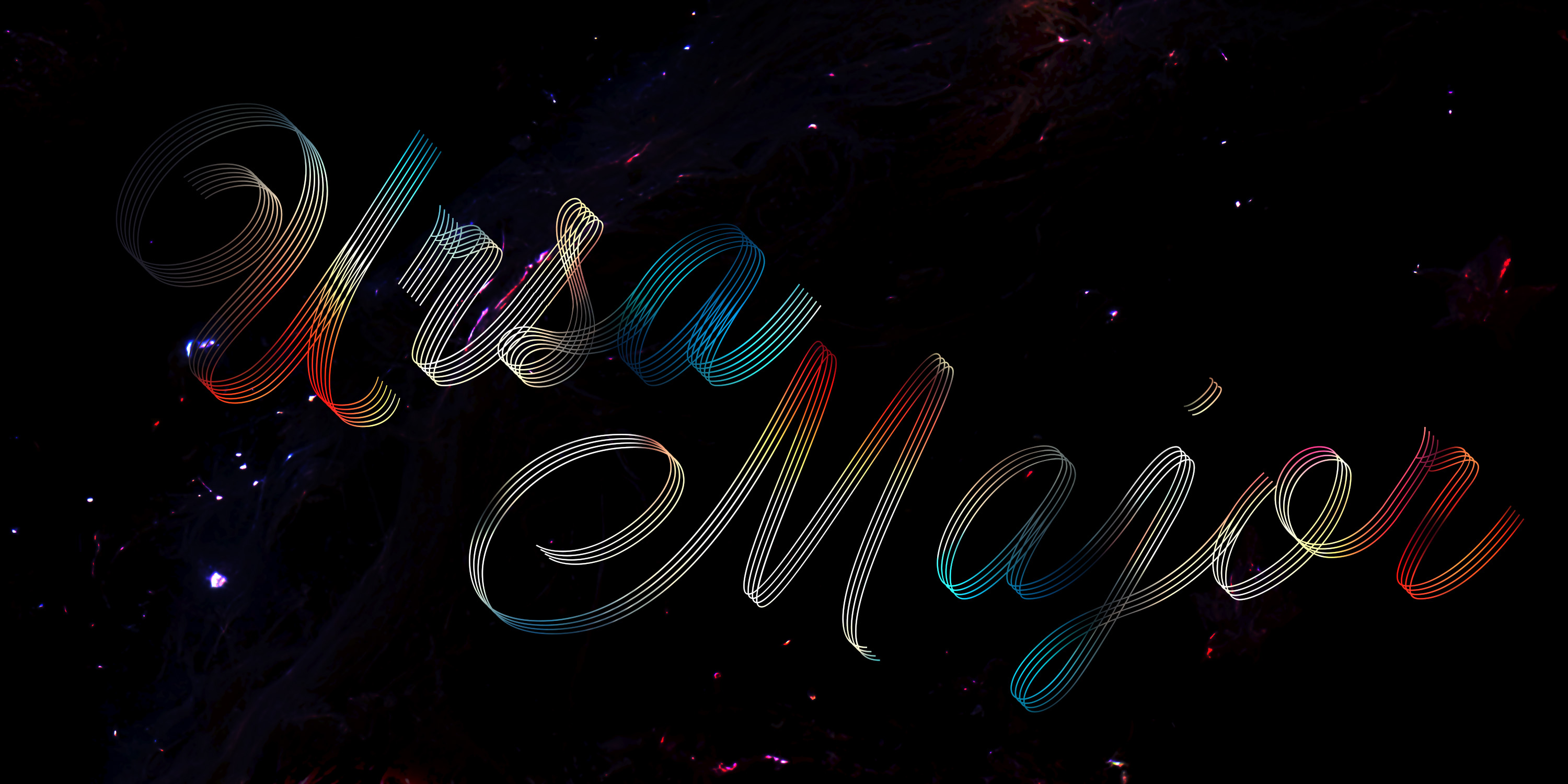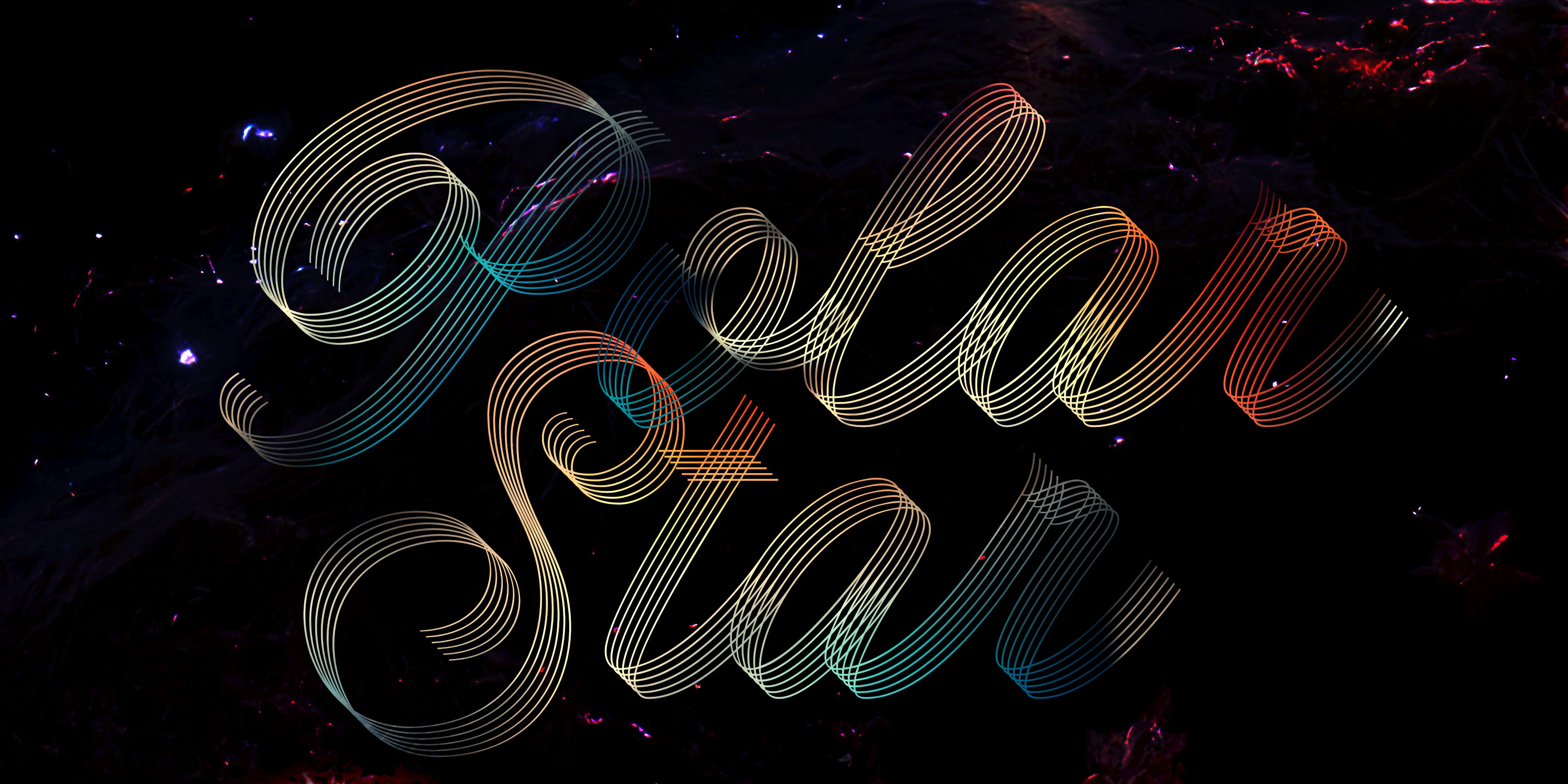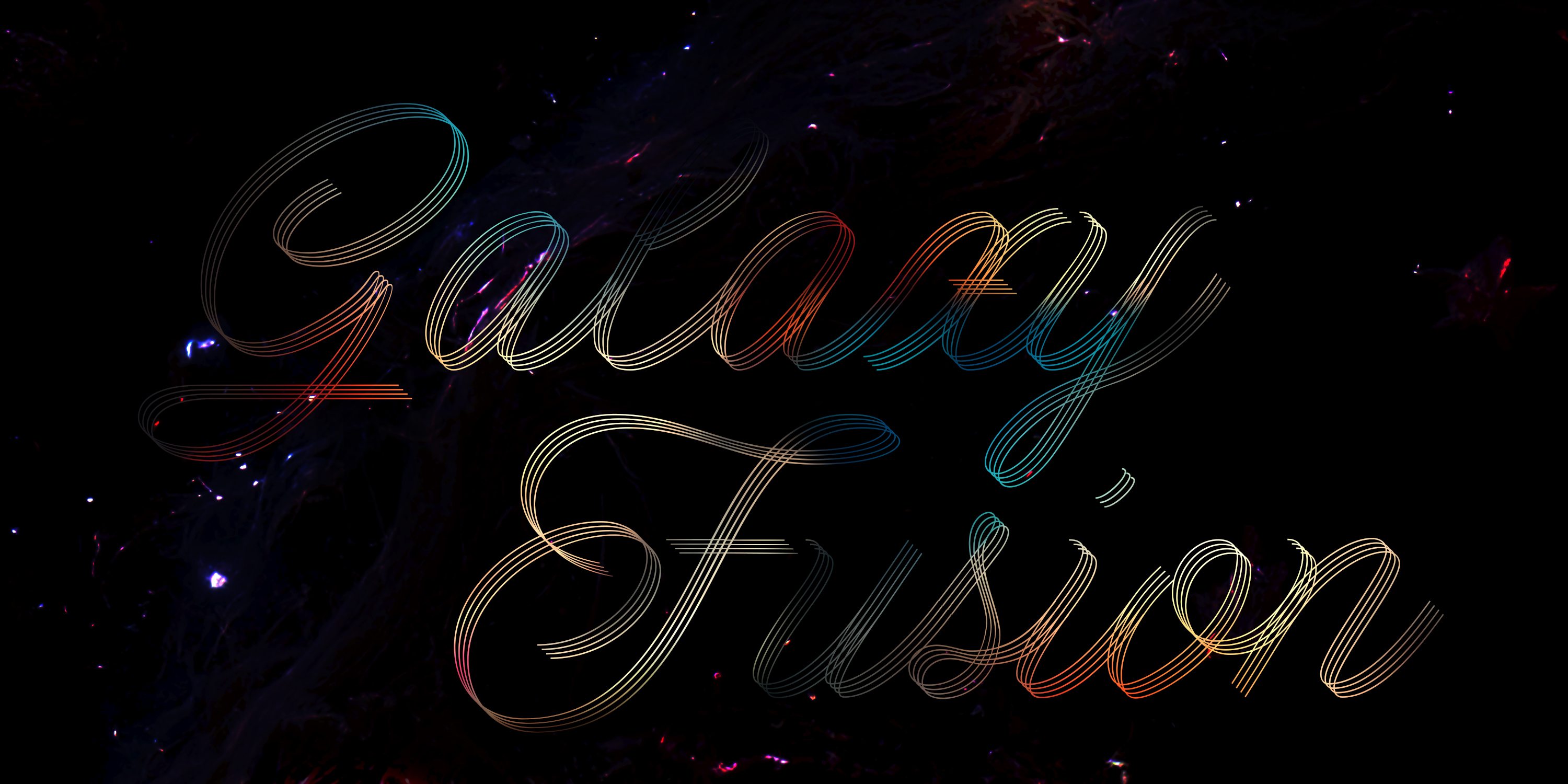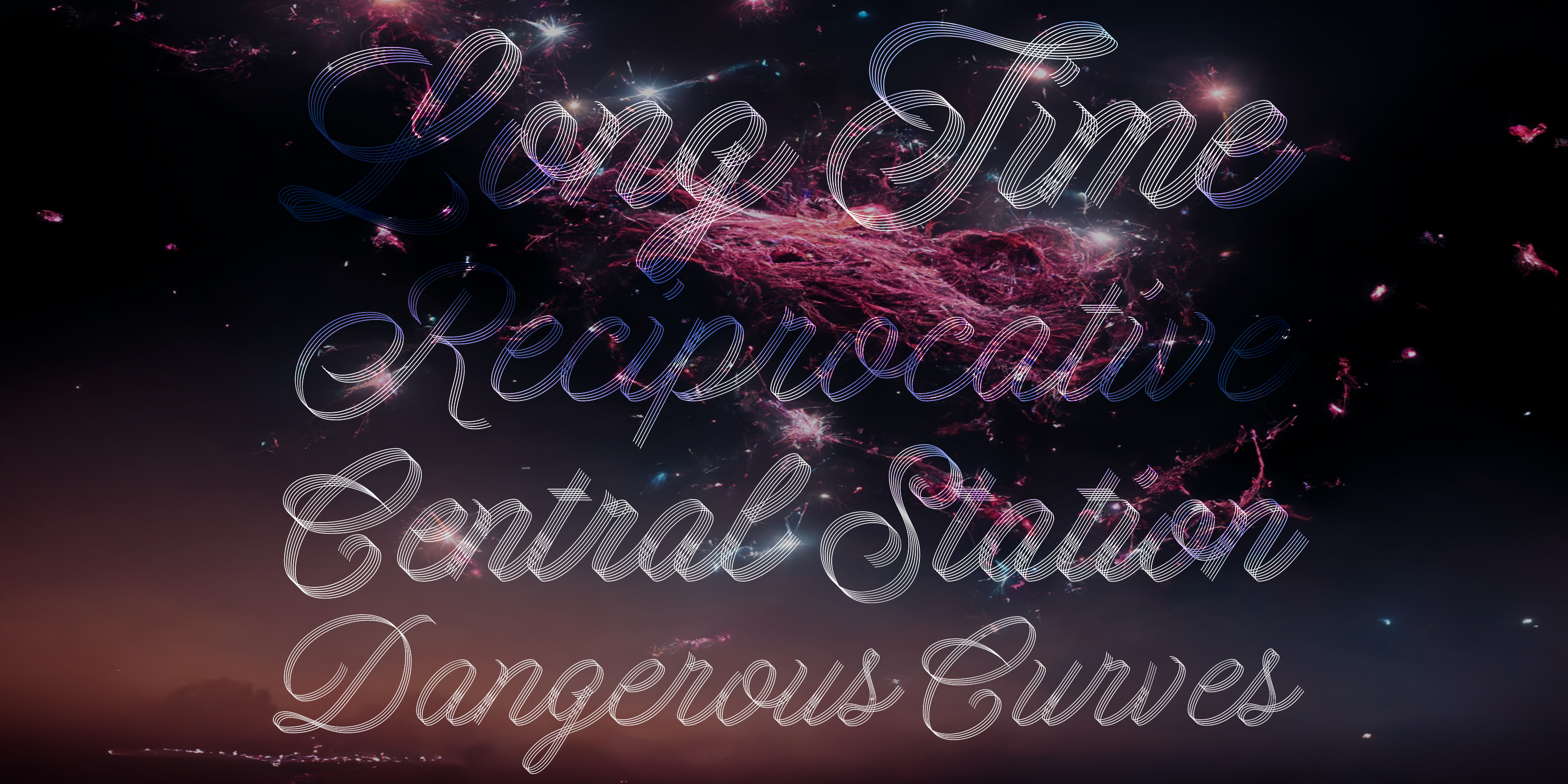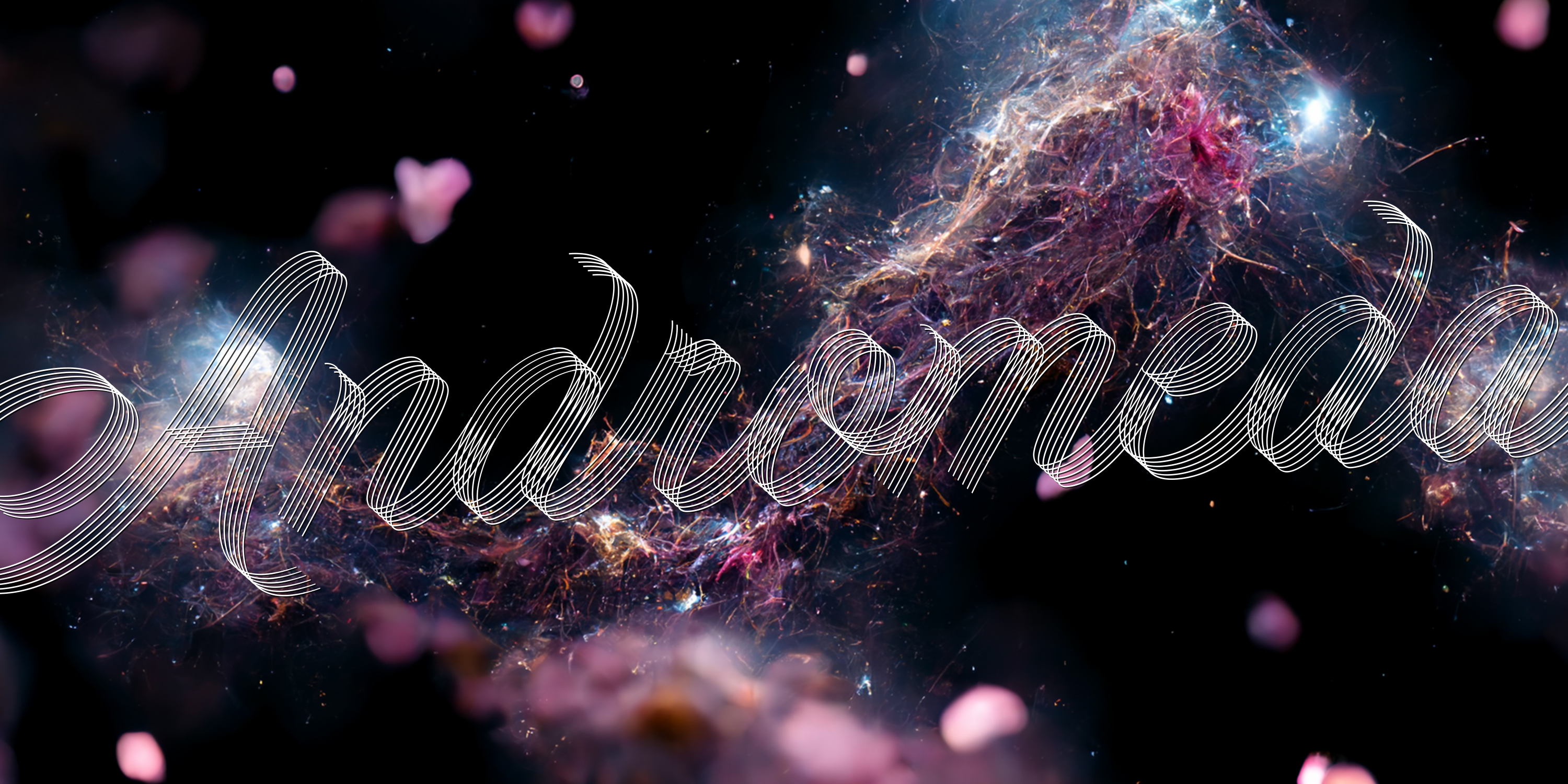
Ainda
A multiline script font
Ainda
Designed by Resistenza Type FoundryWe always had a crush for multilinear fonts and a great love story with script types. So we decided to bring them together and create Ainda. A new multiline script font based on and English copperplate skeleton.
A modern approach to classic flourished scripts, designed with a slanted angle that gives dynamism and creates a ribbon effect when the lines come together in the connections, adding depth and perspective.
Ainda family includes 2 weights, Regular & Bold. This Display font will light your layout with a contemporary and elegant flair. Highly recommend to use it on big sizes.